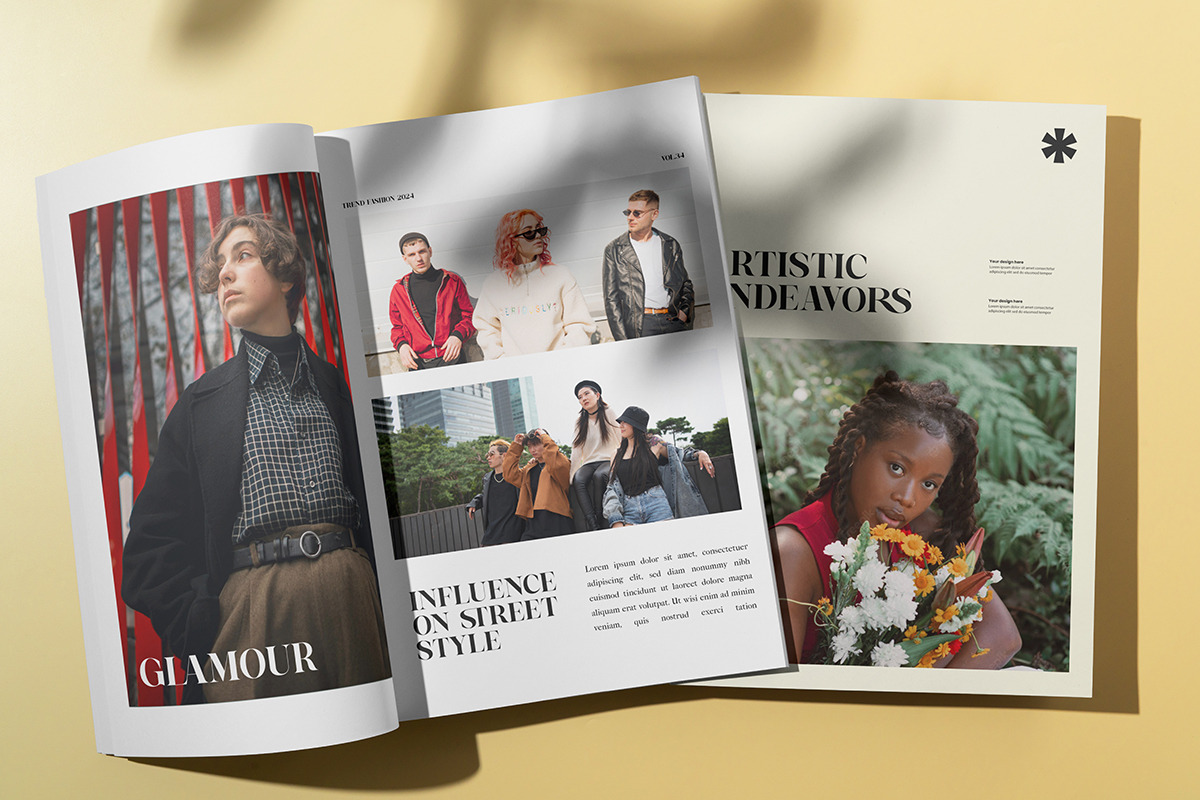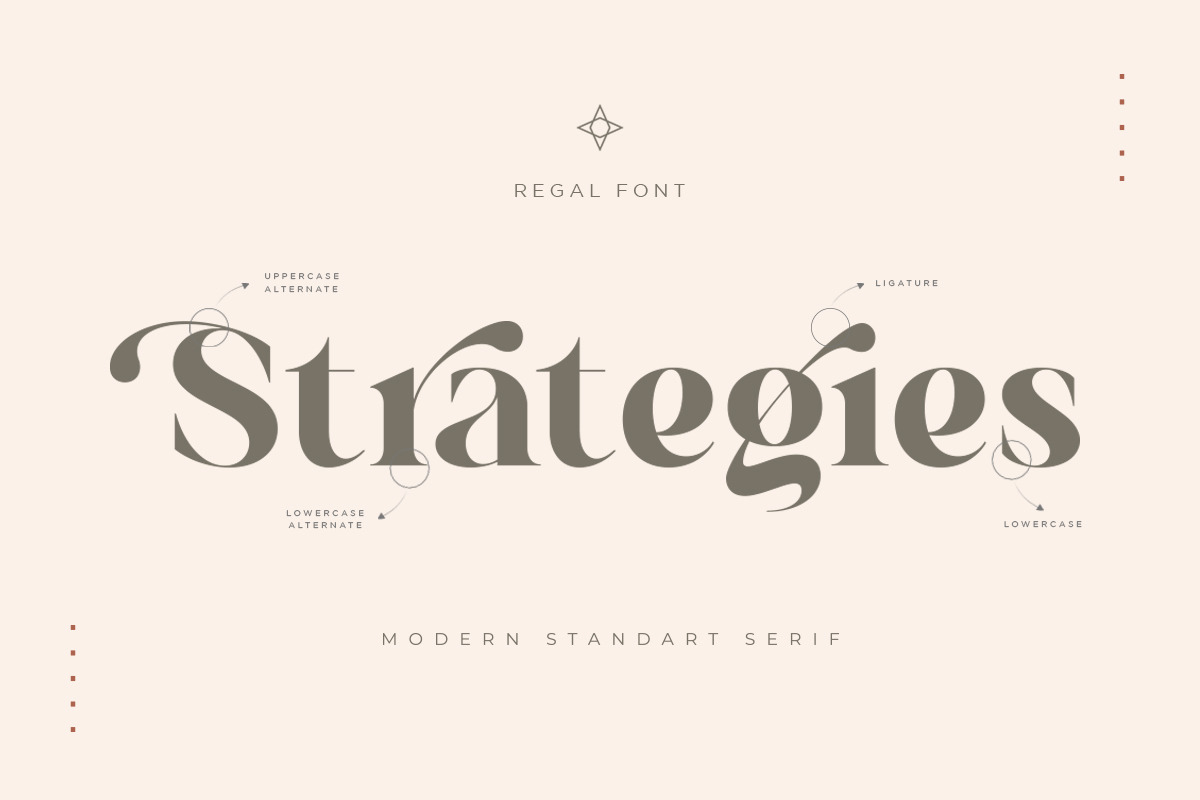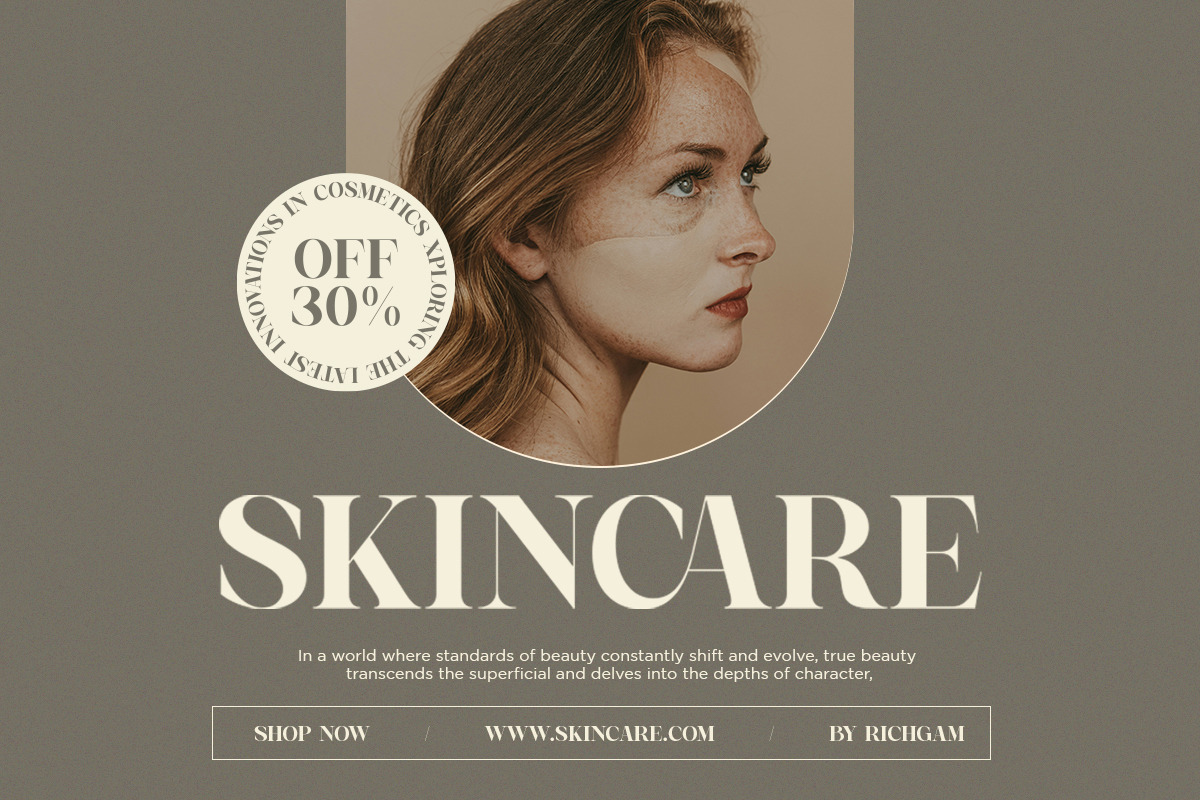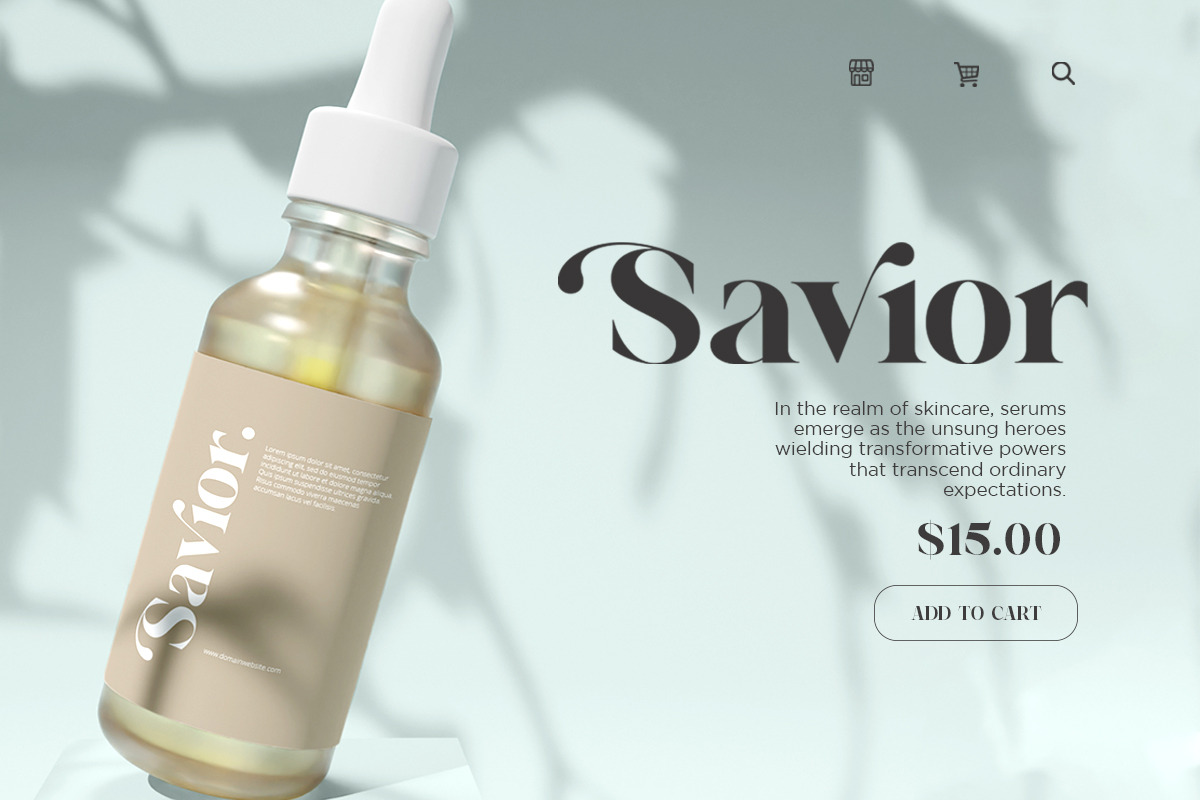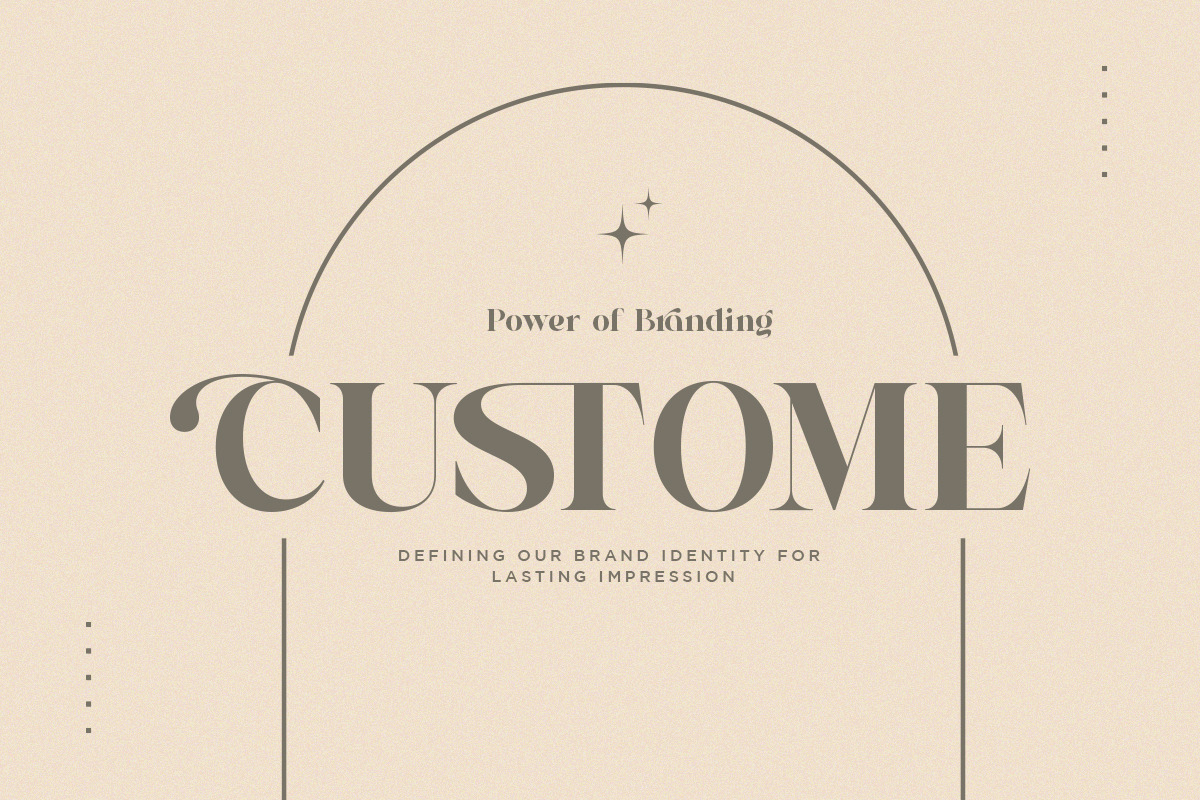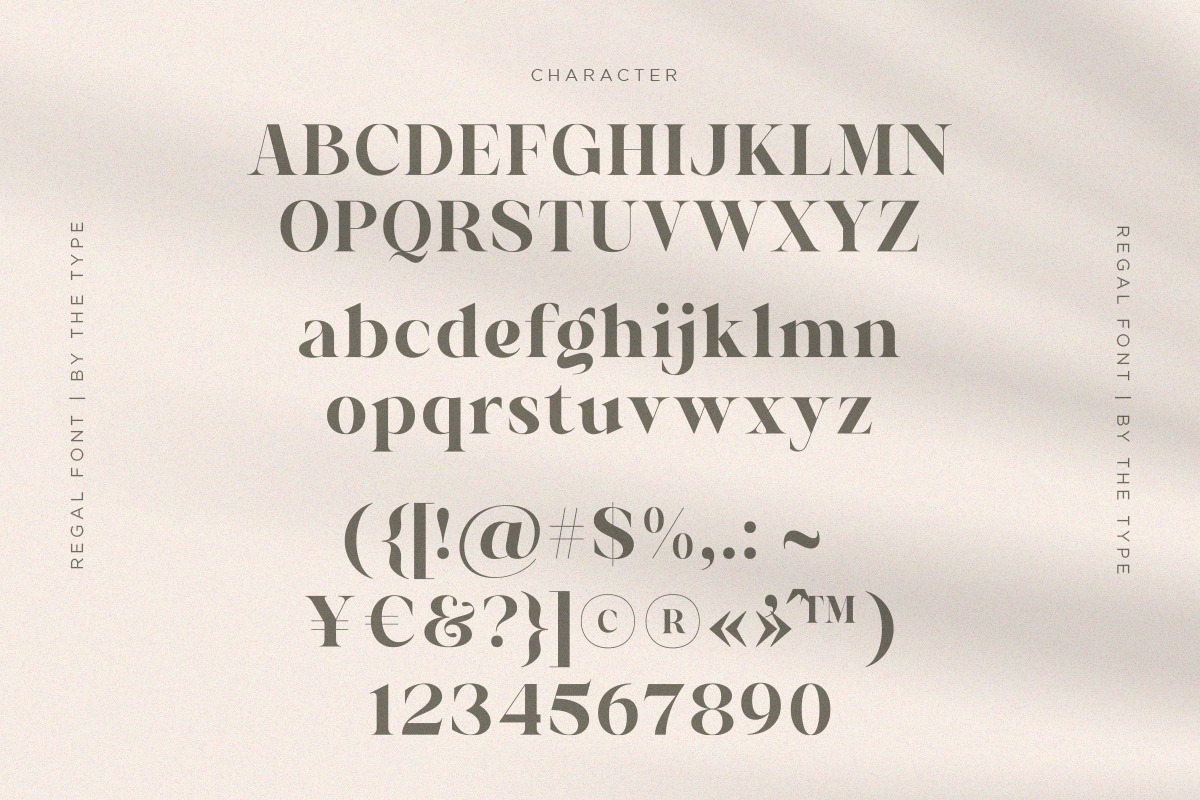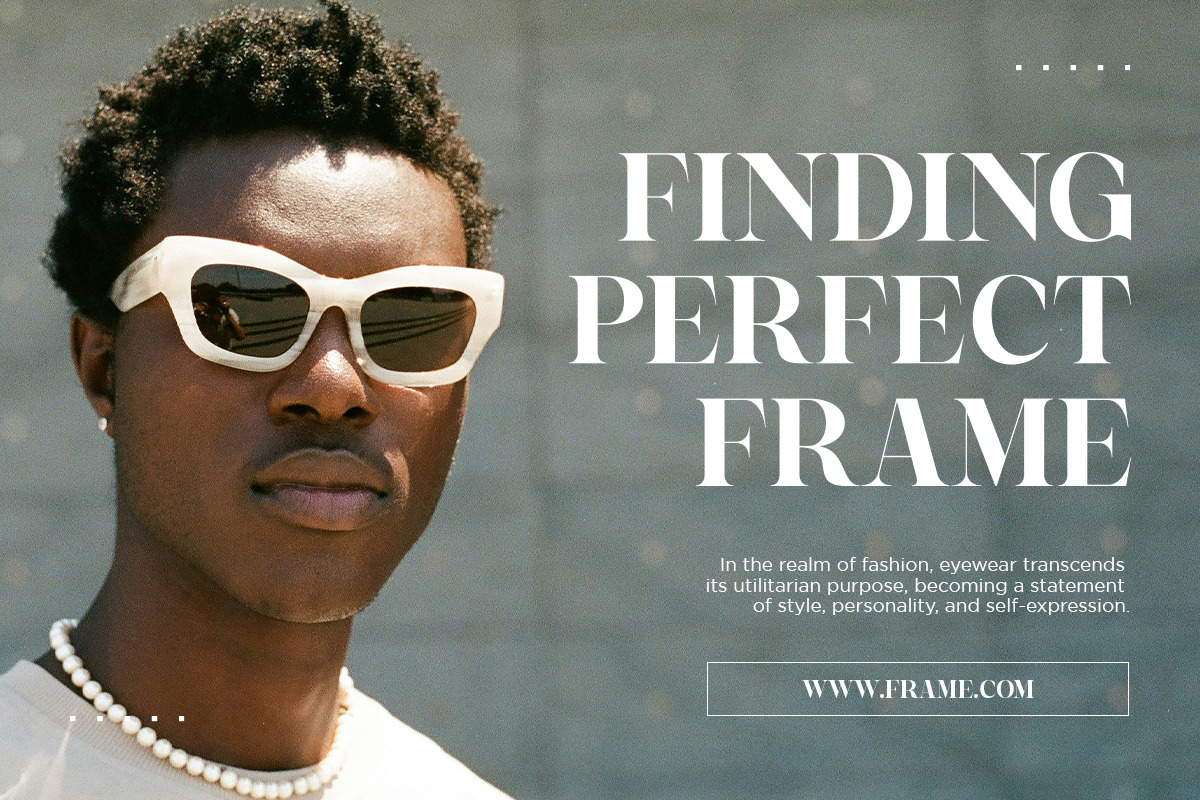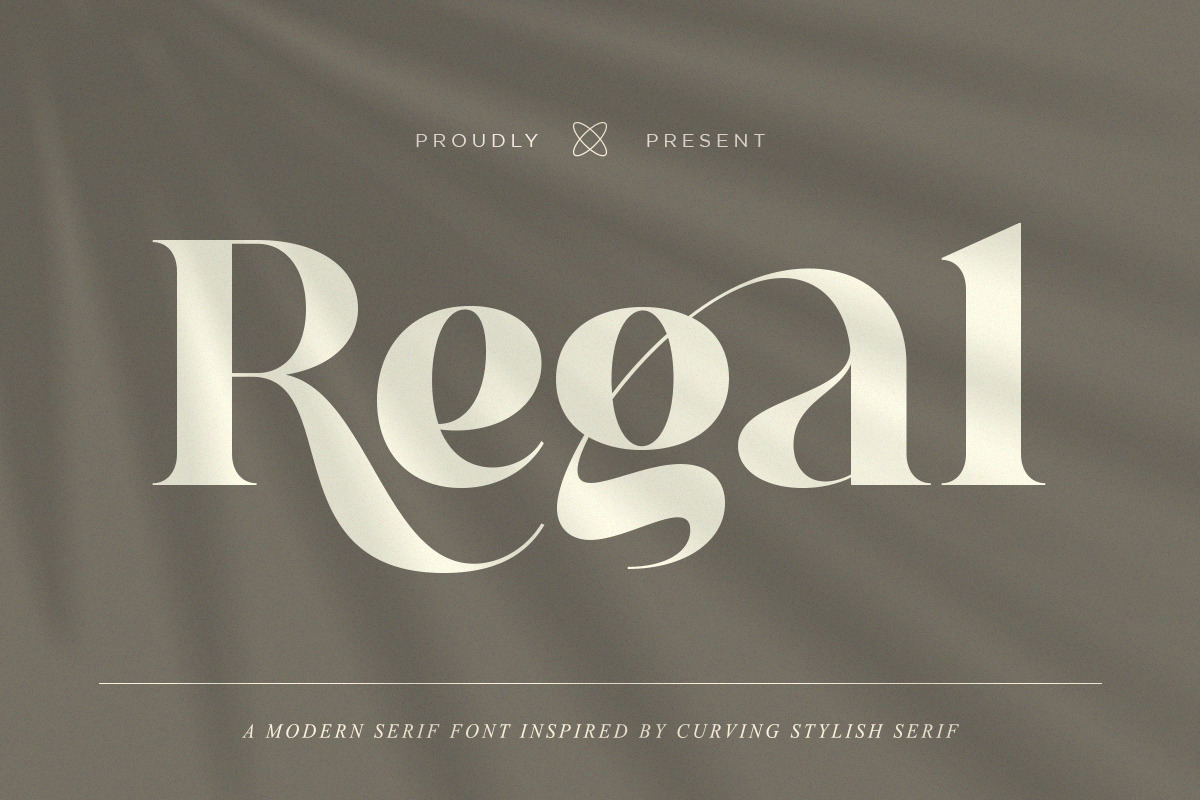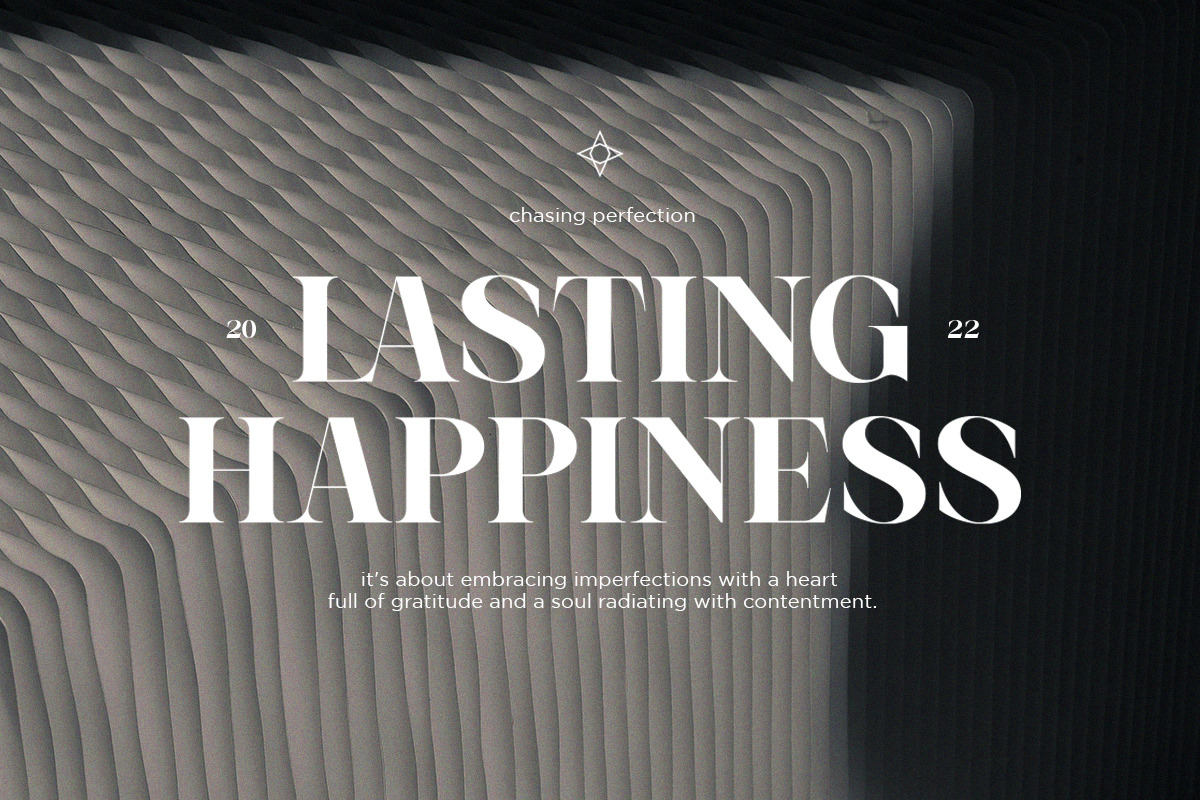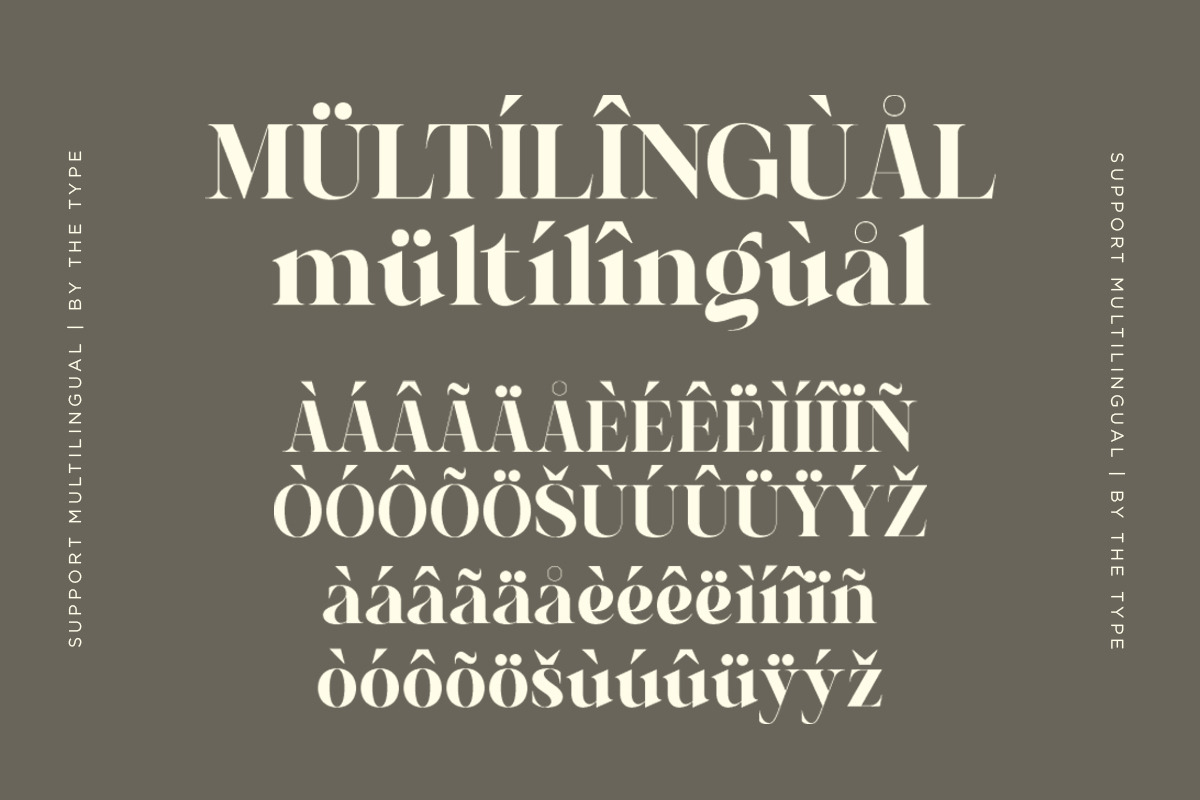
Regal - Curving Stylish Font
Regal - a modern serif font Inspired by Curving Stylish Font. This font can look more classic (conservative) serif, which is perfect for texts. So same he can be more expressive, playing and more modern with alternative substitutes and ligatures, try to play with them and you will get the uniqueness in your project.